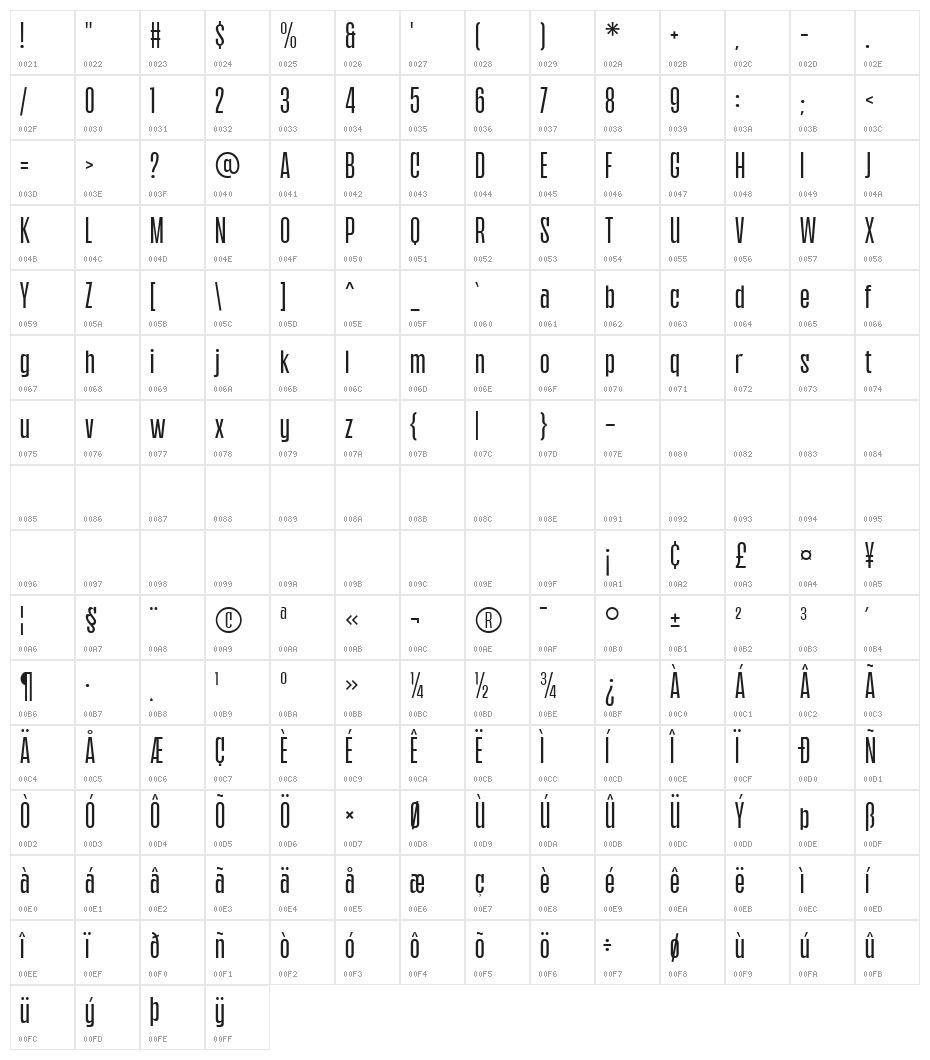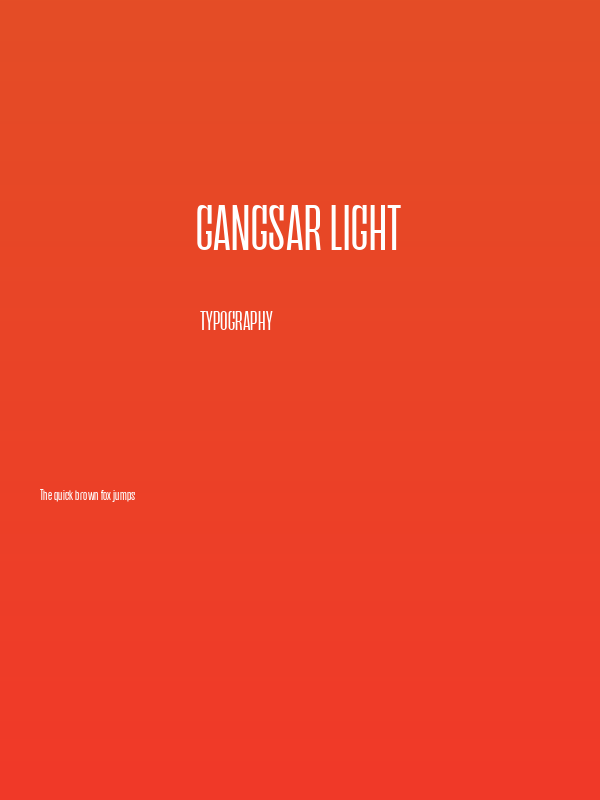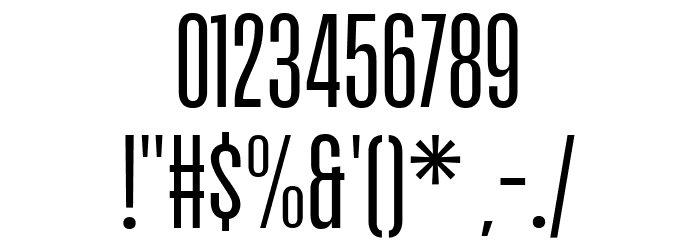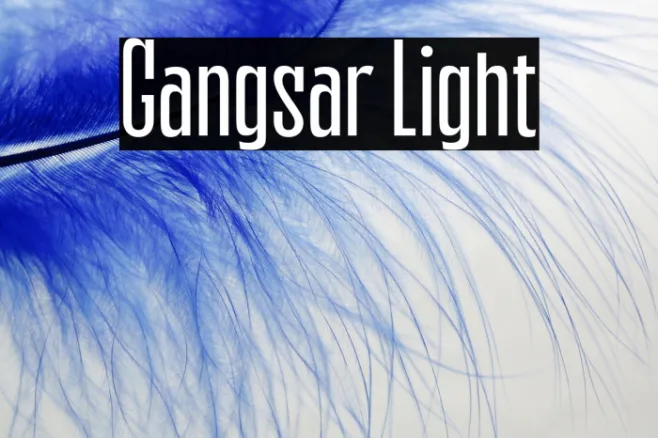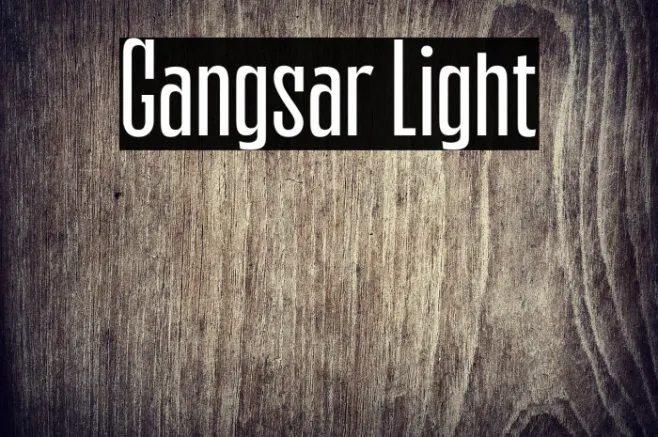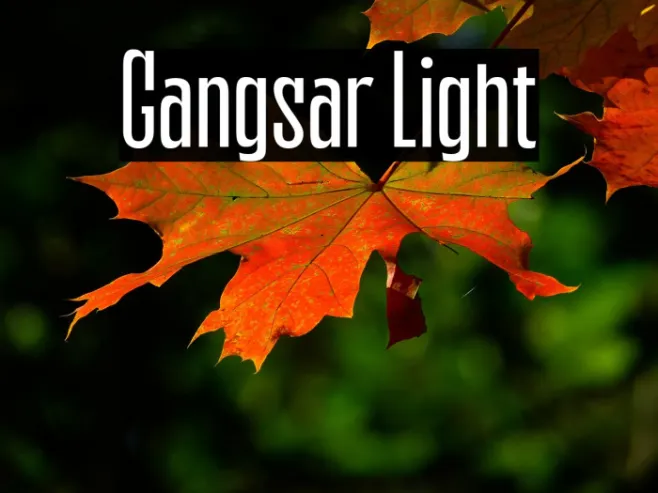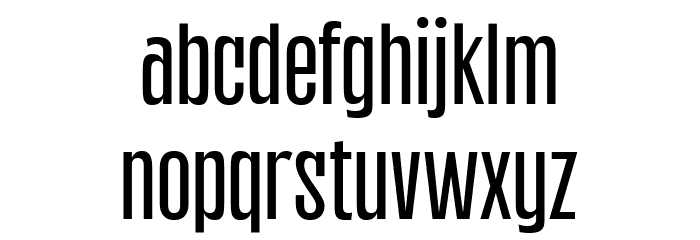
Gangsar Light Font
Gangsar Light Description
This font features a sleek and modern sans-serif design with a tall and narrow structure. The characters are uniformly aligned, providing a clean and professional appearance. The uppercase letters are bold and prominent, while the lowercase letters maintain a consistent height, enhancing readability. The numerals are straightforward and align well with the overall aesthetic. Special characters are distinct and maintain the font's cohesive style. The font's design is suitable for a variety of applications, offering a contemporary and stylish look.
| Use Case | Headlines, Logos, Editorial design |
| Proposed Projects | Ideal for branding, advertising, and editorial design projects that require a modern and professional look. |